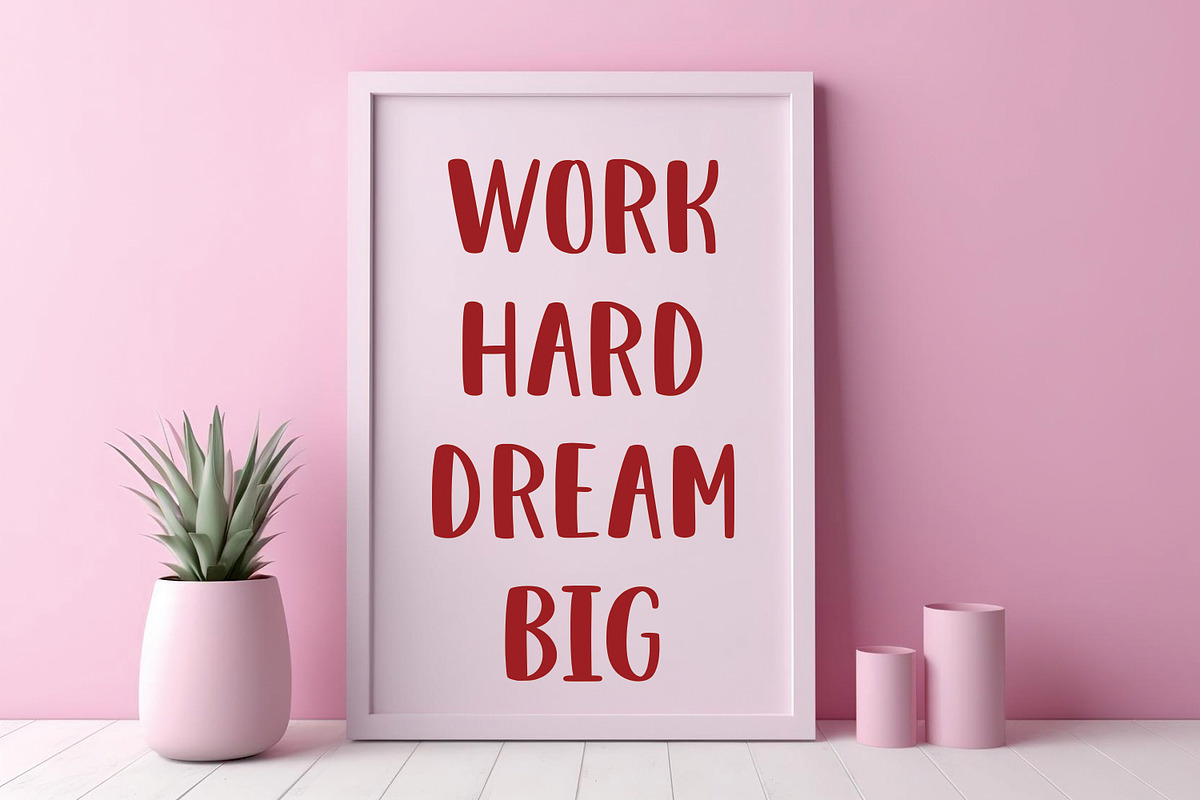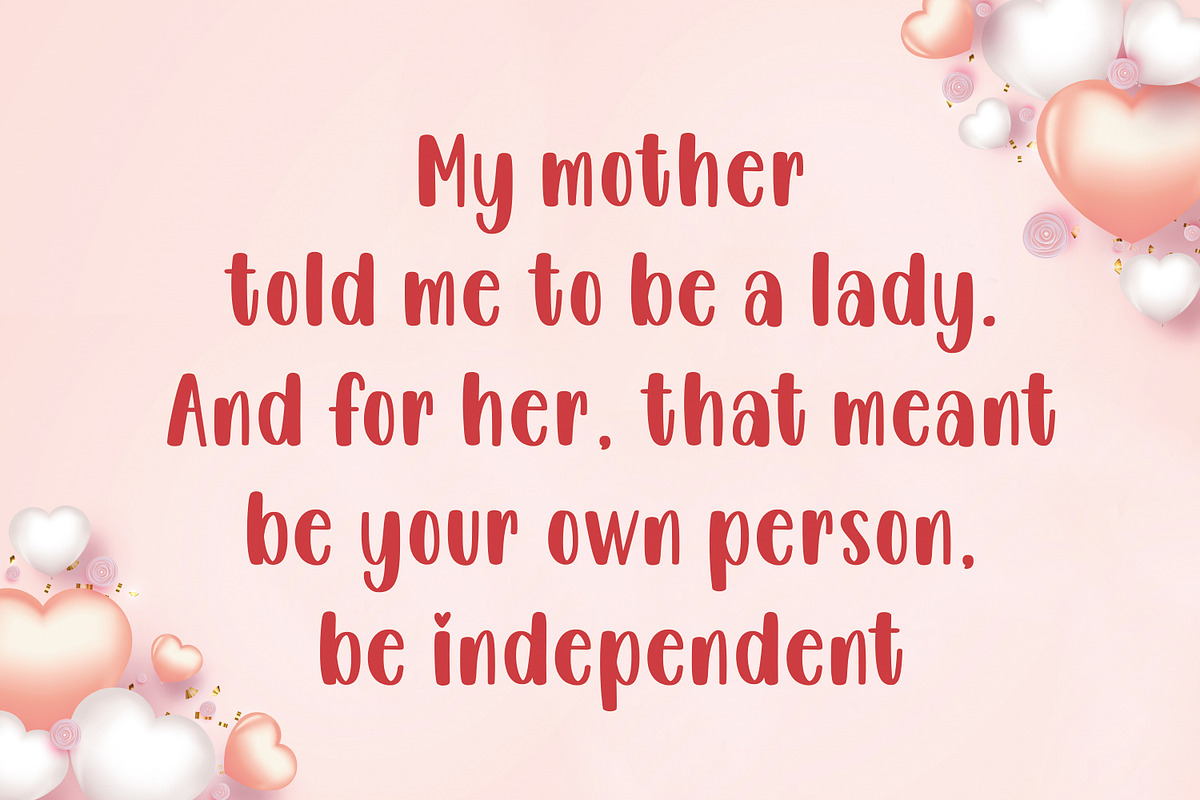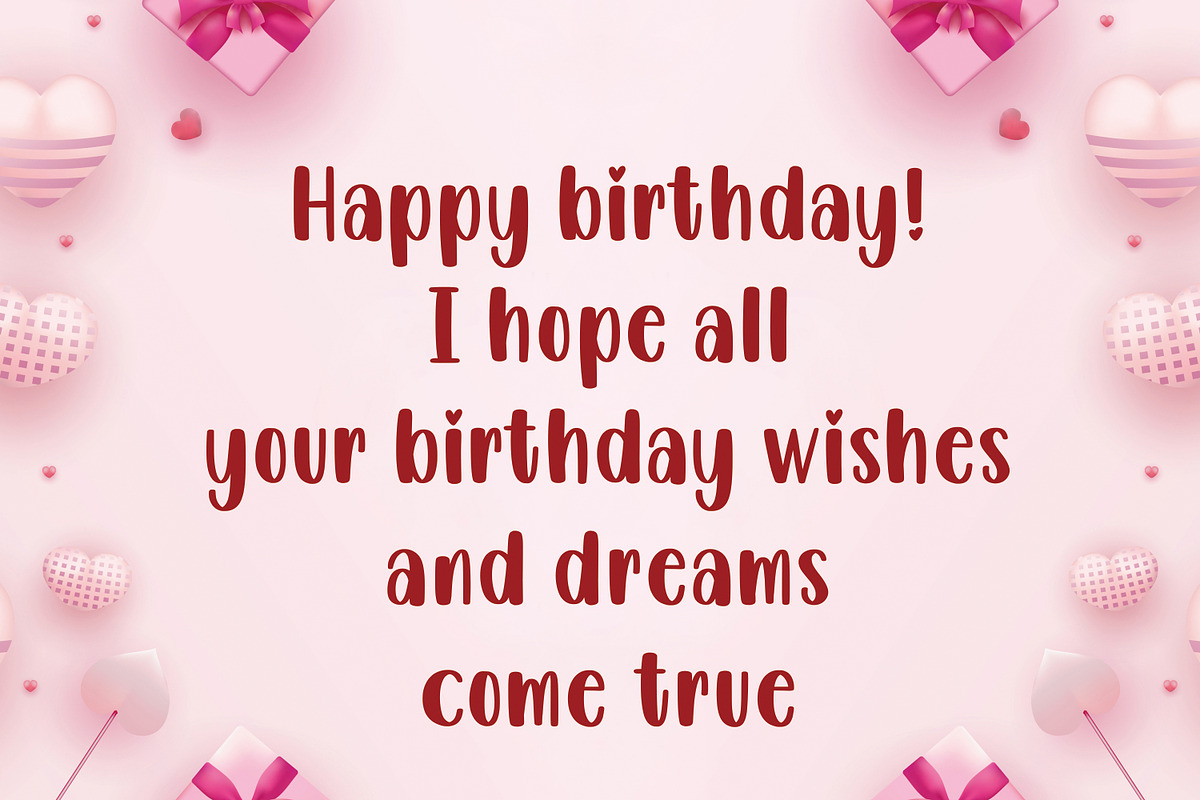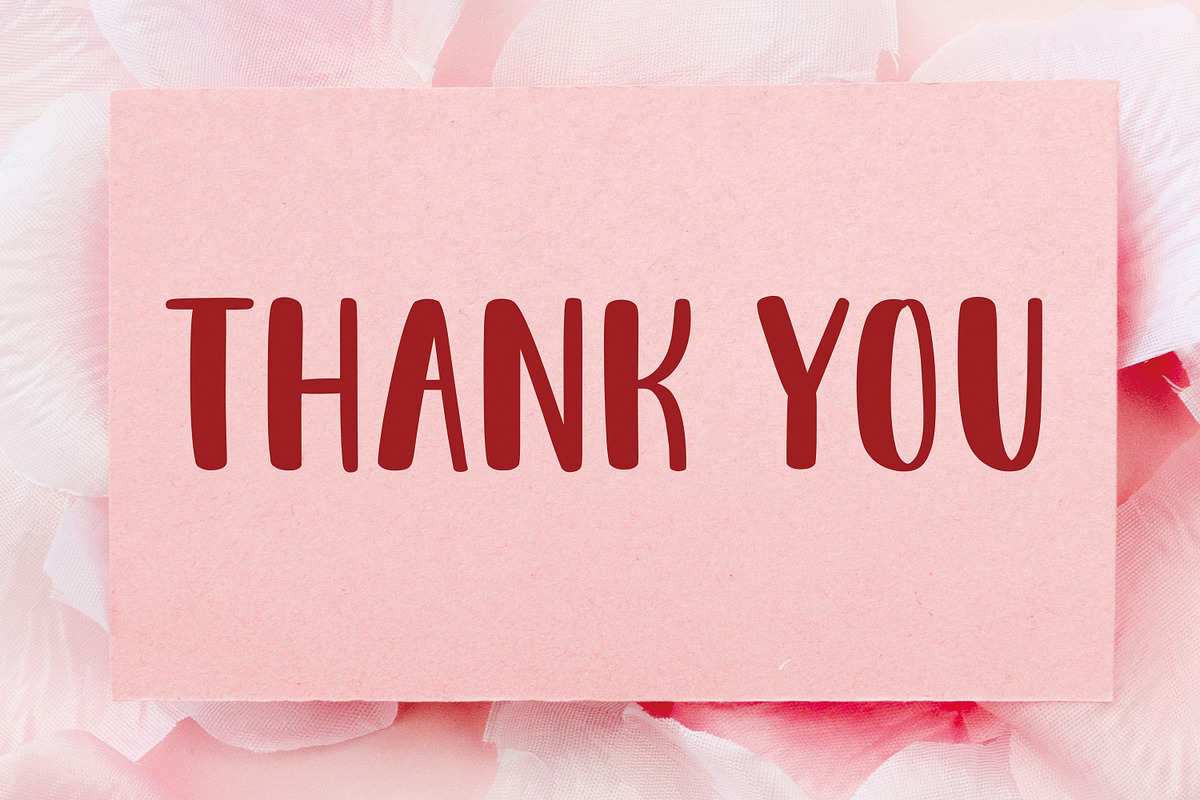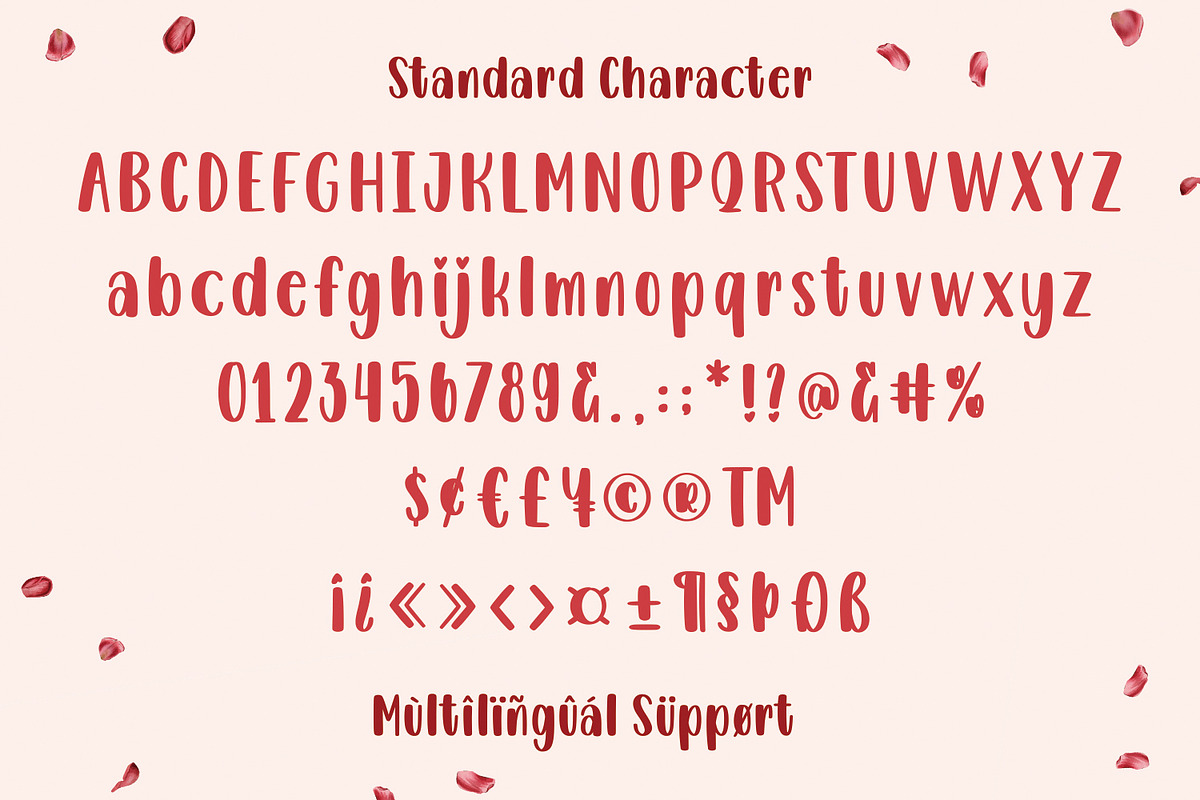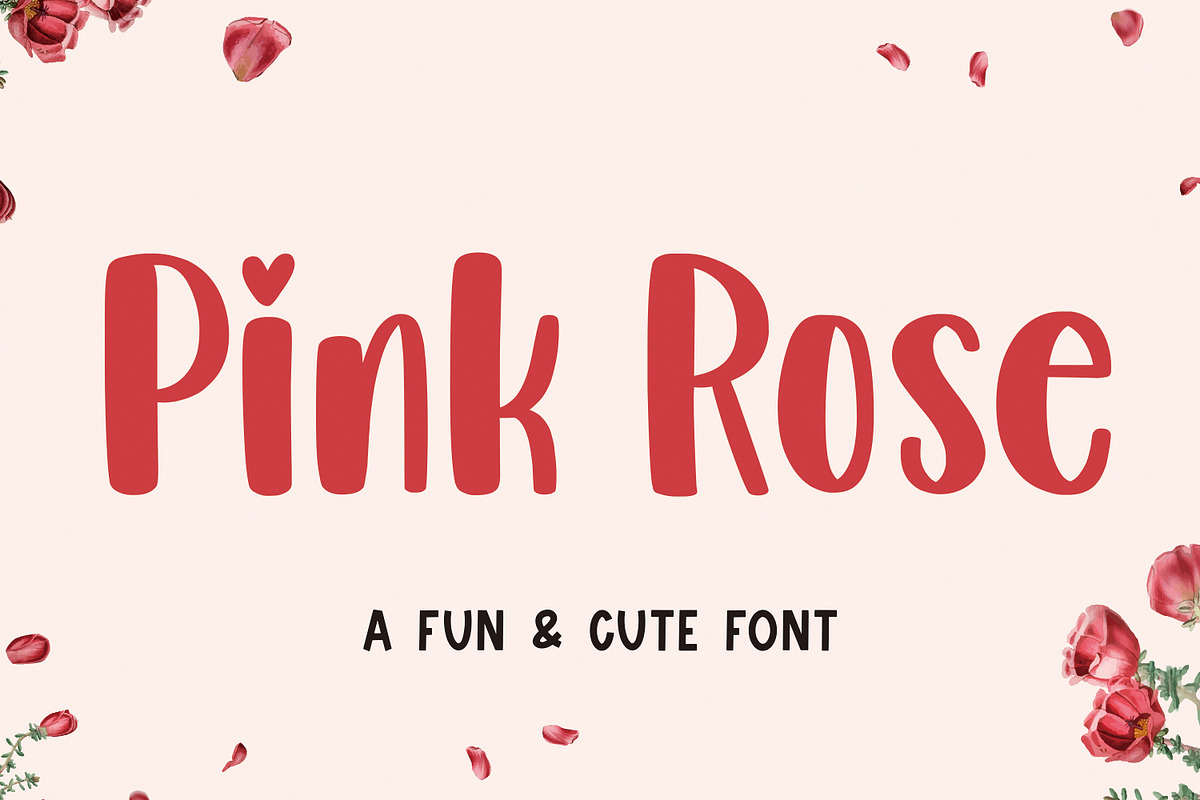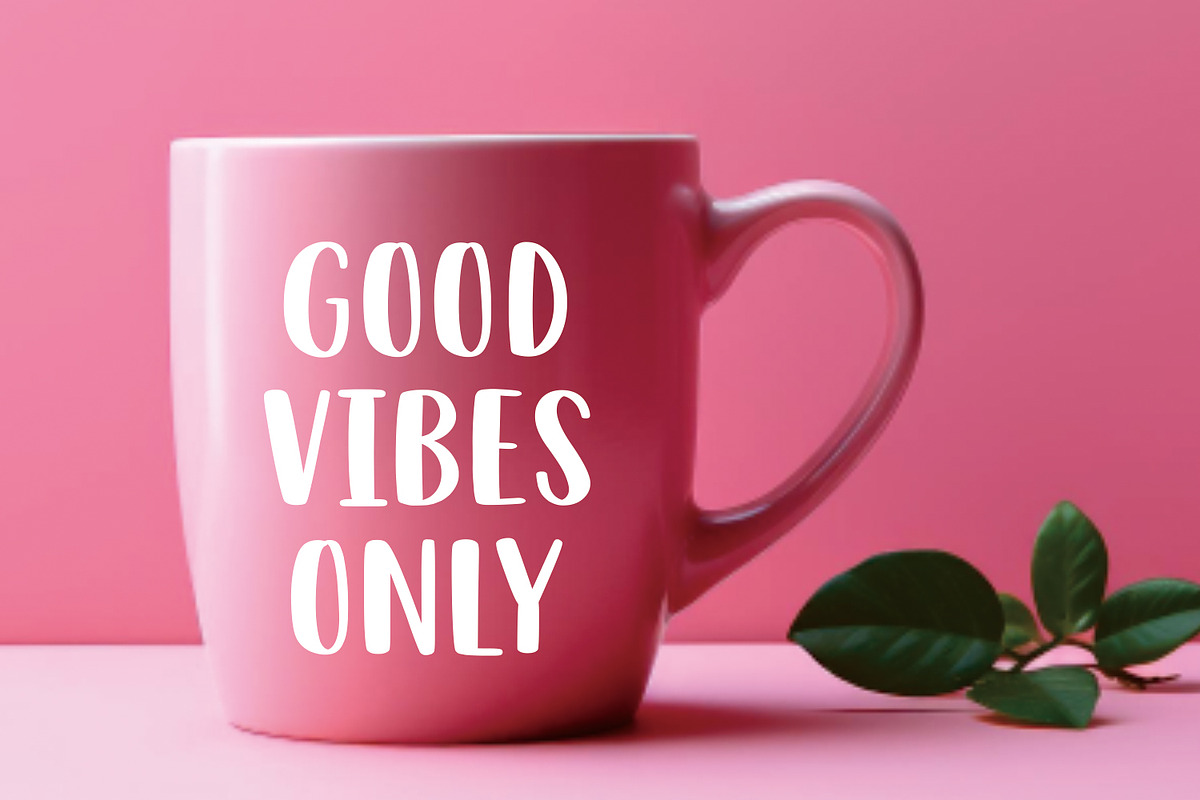
Pink Rose
Introducing the Pink Rose Font – a delightful blend of display style and cute aesthetics, tailor-made for themes of love, affection, and heartfelt occasions. This charming font is an ideal choice for expressing sentiments on Valentine's Day, Mother's Day, and various craft projects. Its playful design adds a touch of sweetness to greeting cards, decorations, and craft lettering endeavors.
Crafted with love and creativity in mind, Pink Rose Font is not just a typeface; it's a visual embodiment of warmth and tenderness. Whether you're creating heartfelt messages or adding a touch of charm to your embroidery projects, this font is your perfect companion.